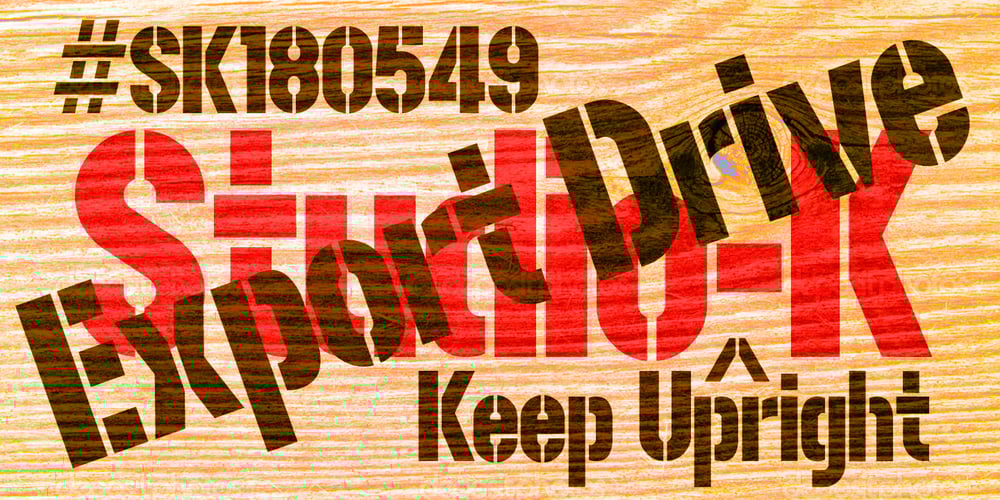
Export Drive
Export Drive font
Export Drive Font Family was designed by Keith Tricker and published by Studio K. Export Drive contains 2 styles and family package options. Export Drive is a bold condensed stencil font of the kind traditionally used to mark tea chests, packing cases and other goods in transit. Nowadays of course its applications are universal, although it is particularly well suited to branding or publishing projects which strive for a sense of freshness, urgency and immediacy, or a rugged, rough-and-ready feel.